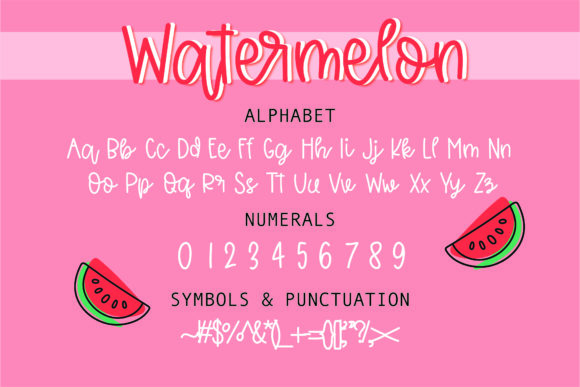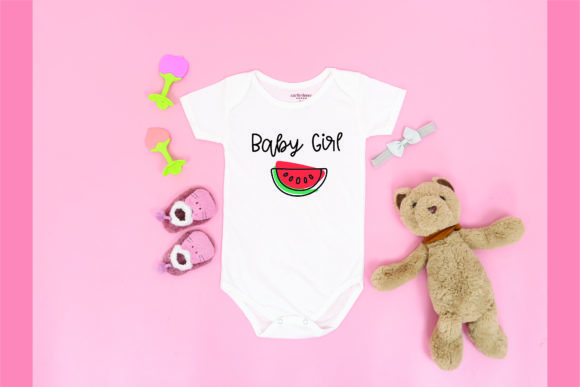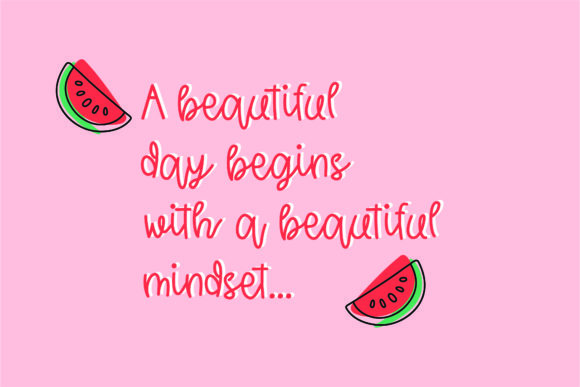
About Watermelon Font
Watermelon is a cute, natural and adaptable handwritten font. This quirky font will look great on a variety of design ideas. It will add a fun and friendly touch to each of your projects!